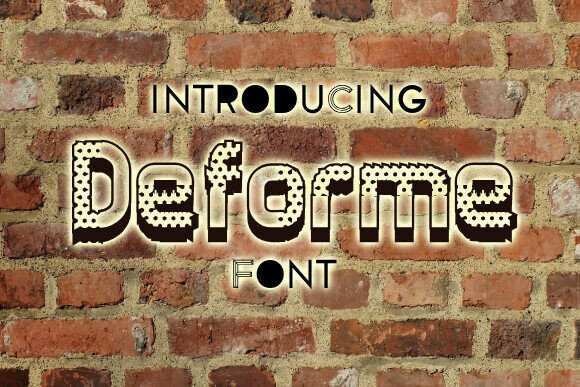
Deforme Font: Elevate Your Designs with a Unique Twist
In the world of graphic design, fonts play a crucial role in conveying messages and capturing audiences’ attention. With numerous font options available, it can be challenging to find the perfect one that sets your design apart. However, if you’re looking for a font that can add a touch of uniqueness and creativity to your projects, look no further than Deforme Font. In this article, we’ll explore the features and benefits of Deforme Font and how it can take your designs to the next level.
What is Deforme Font?
Deforme Font is a distinctive and modern font designed to add a creative twist to your designs. Its unique, irregular shape and bold lines make it perfect for attention-grabbing projects. Whether you’re working on posters, flyers, t-shirts, or any other design project, Deforme Font is an excellent choice.
Benefits of Using Deforme Font
- Uniqueness: Deforme Font offers a fresh and distinctive look that sets it apart from traditional fonts.
- Versatility: This font can be used on various design materials, including posters, flyers, t-shirts, and more.
- Attention-grabbing: The bold and irregular shape of Deforme Font makes it perfect for capturing audiences’ attention.
- Ease of use: Deforme Font is easy to read and works well in both digital and print formats.
Design Tips for Using Deforme Font
To get the most out of Deforme Font, here are some design tips to keep in mind:
- Pair with simple fonts: Combine Deforme Font with simpler fonts to create contrast and visual interest.
- Experiment with colors: Try out different color schemes to find the perfect match for your design.
- Play with sizes: Use varying font sizes to create a visually appealing hierarchy.
- Add textures and graphics: Incorporate textures and graphics to add depth and interest to your design.
Examples of Deforme Font in Action
Deforme Font can be used in a wide range of design projects. Here are some examples:
- Posters: Use Deforme Font as a headline font to grab attention and create a lasting impression.
- Flyers: Add a creative touch to your flyers with Deforme Font, making them stand out from the crowd.
- T-shirts: Create eye-catching designs for t-shirts using Deforme Font, perfect for branding or promotional purposes.
In conclusion, Deforme Font is an excellent choice for designers looking to add a unique touch to their projects. Its bold, irregular shape and versatility make it perfect for a wide range of design materials. By incorporating Deforme Font into your designs, you’ll be able to create attention-grabbing and memorable projects that set you apart from the competition.